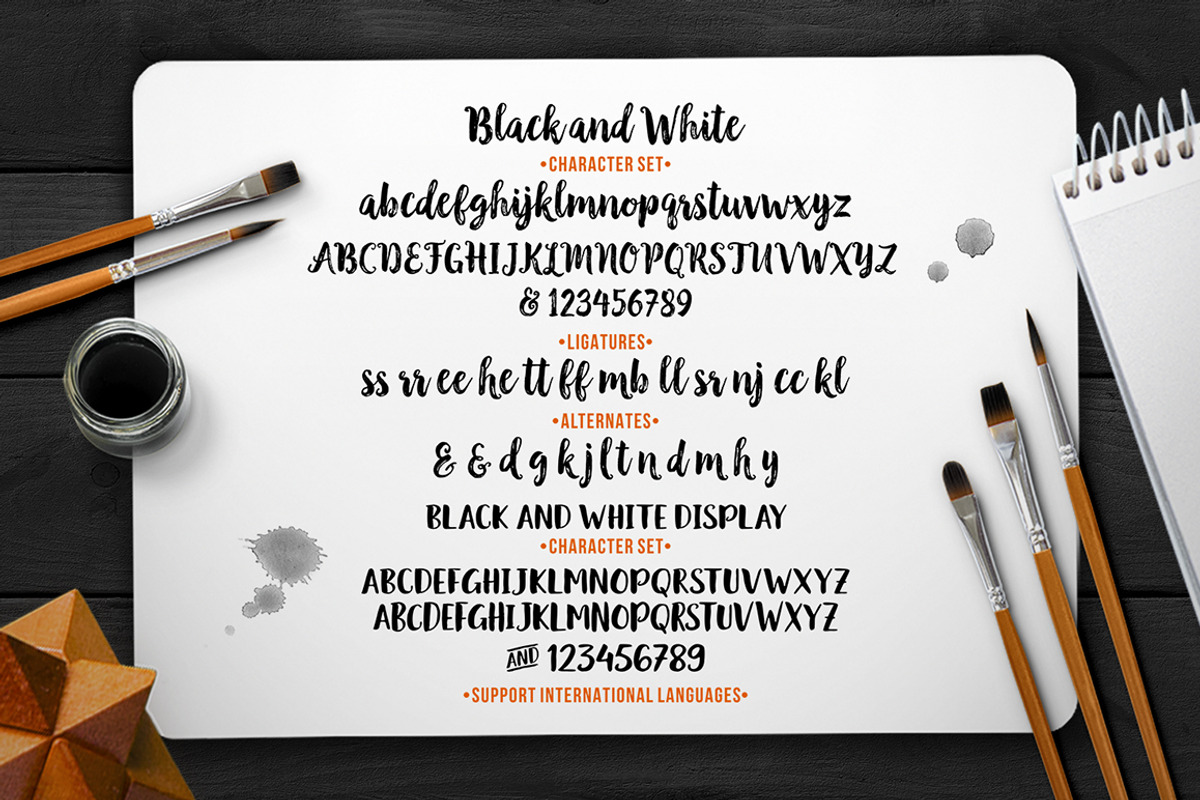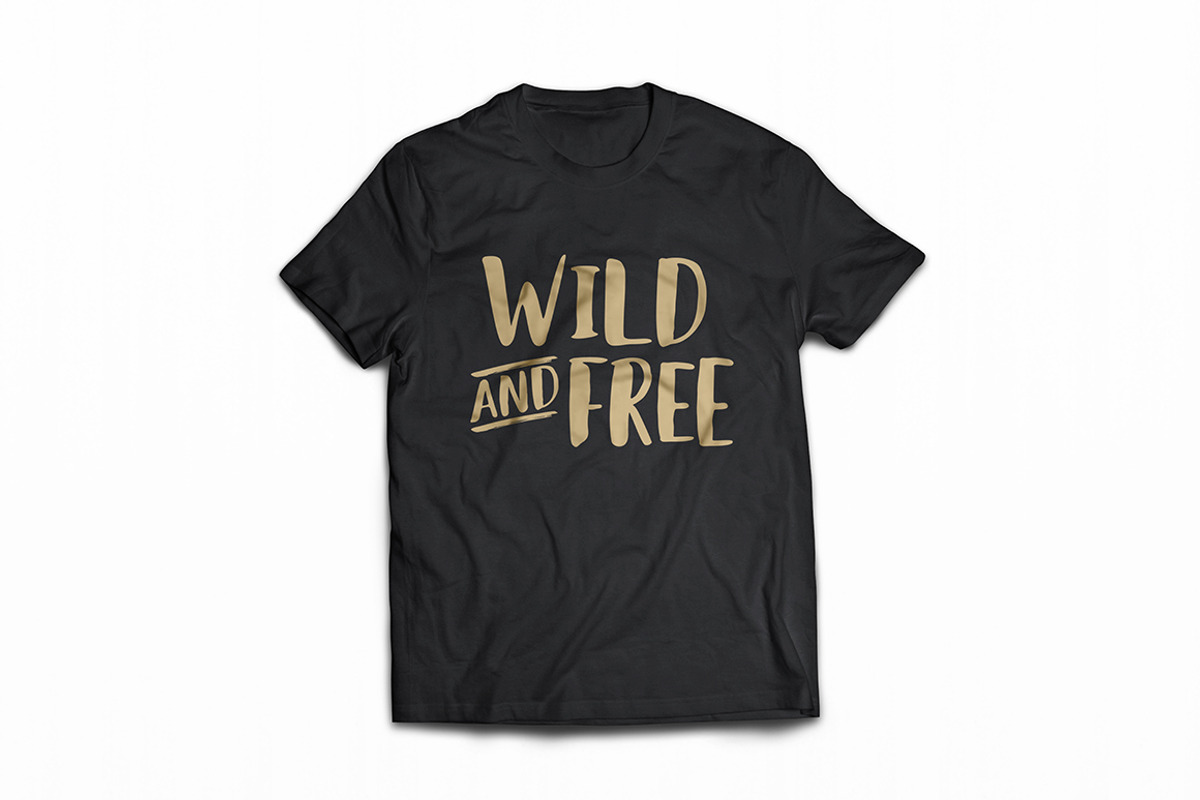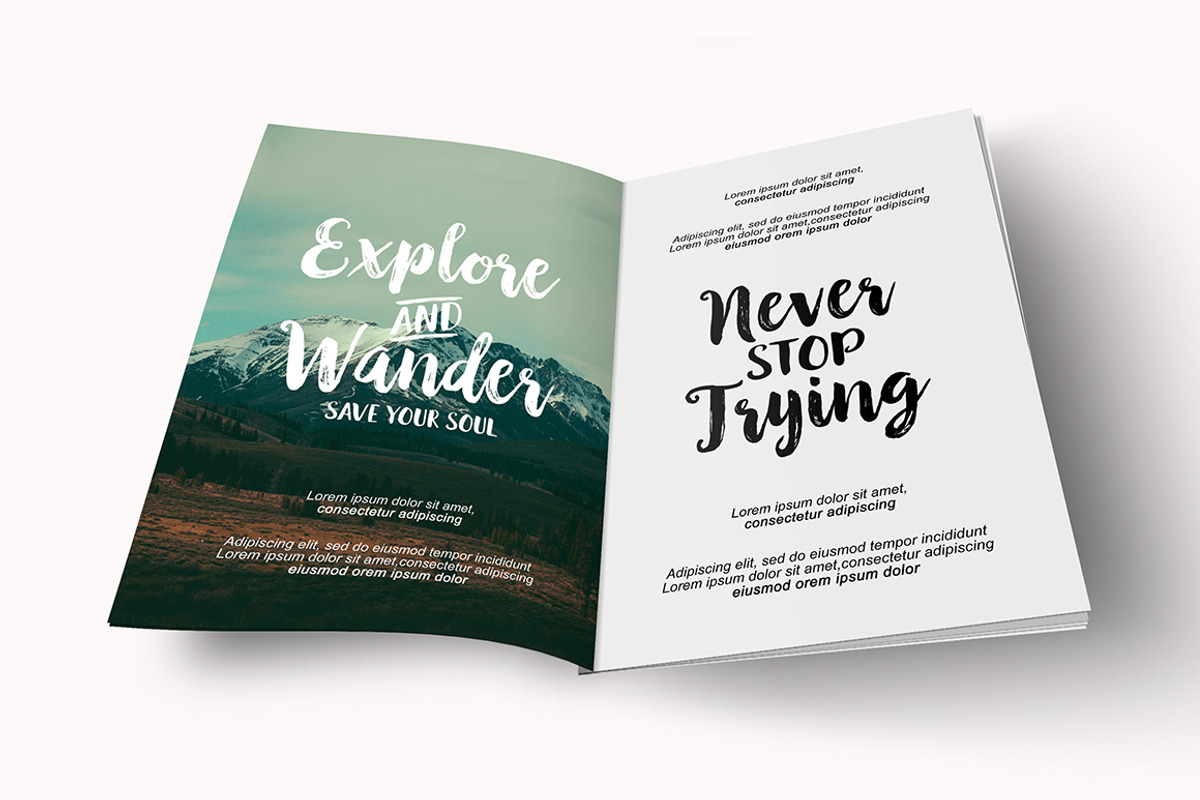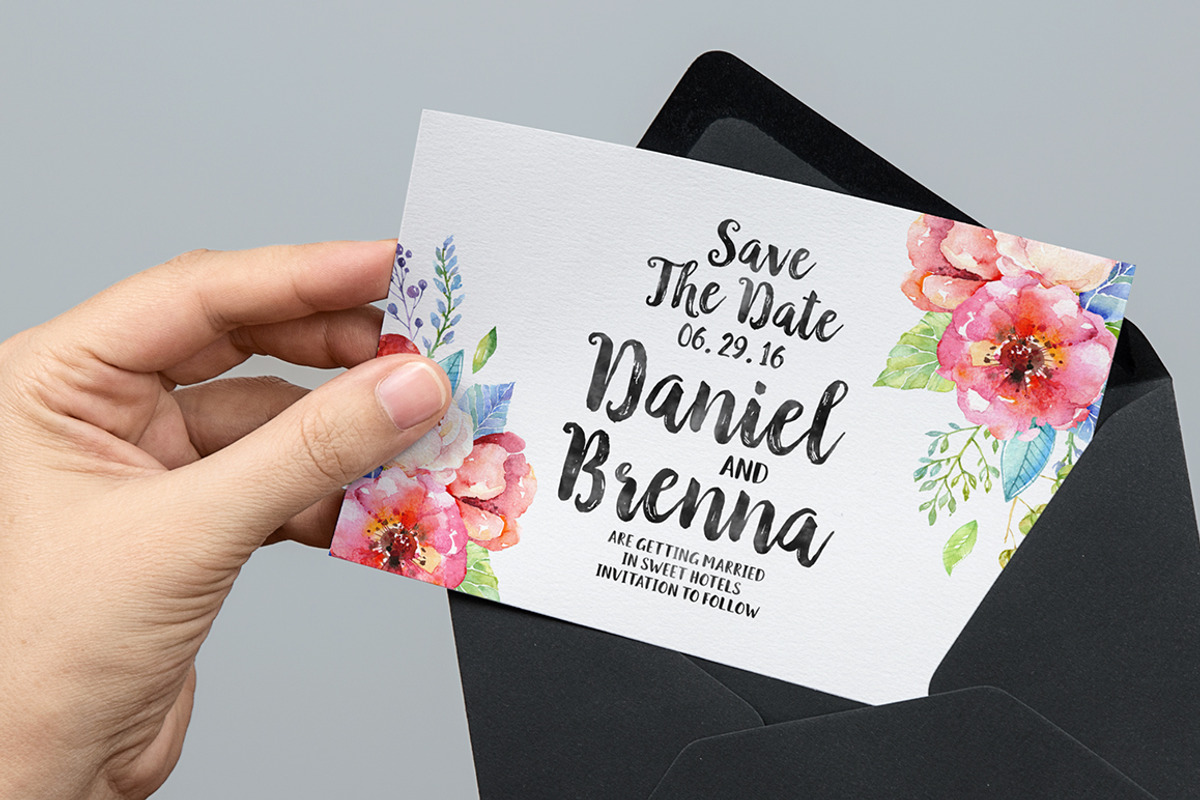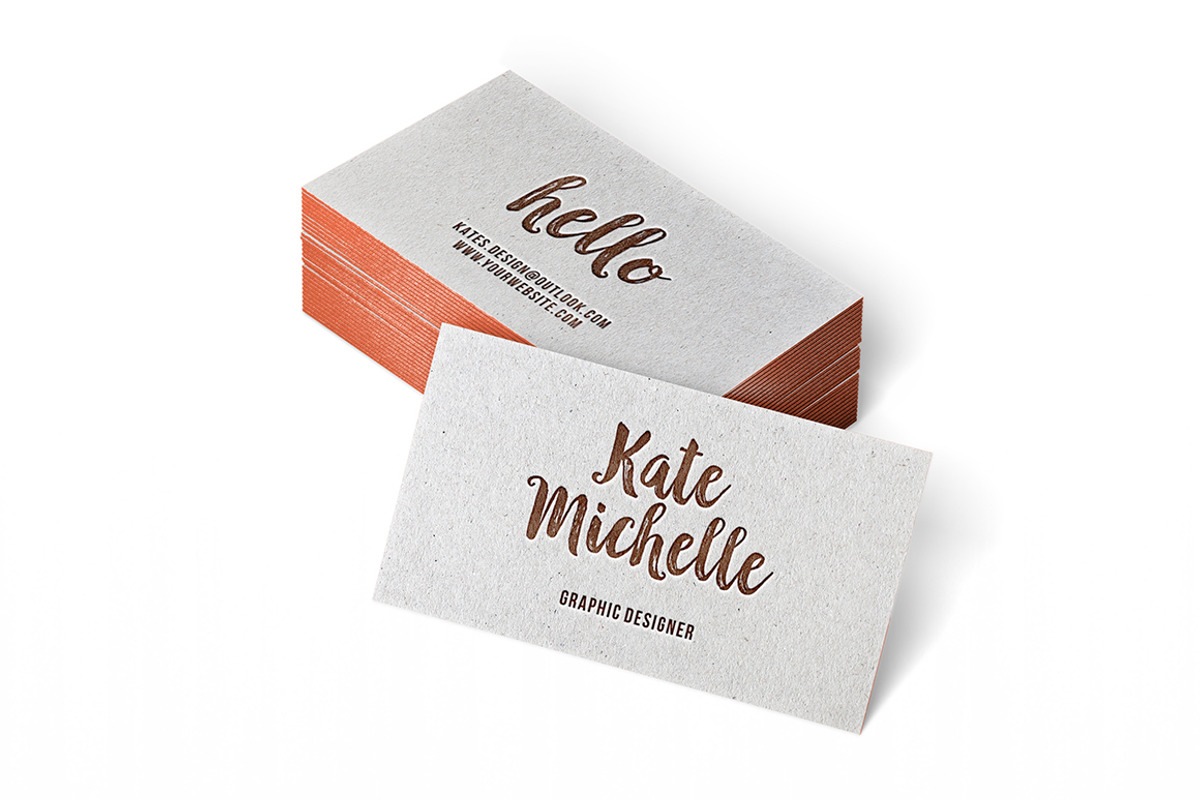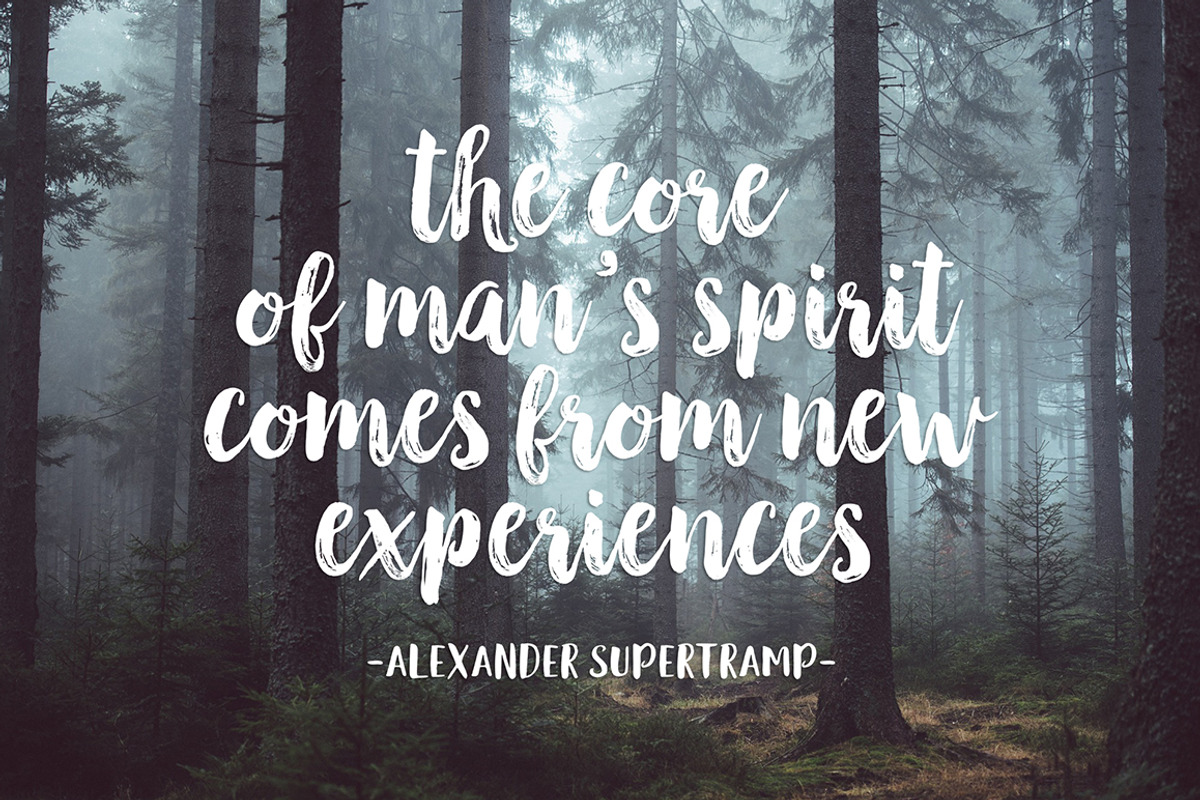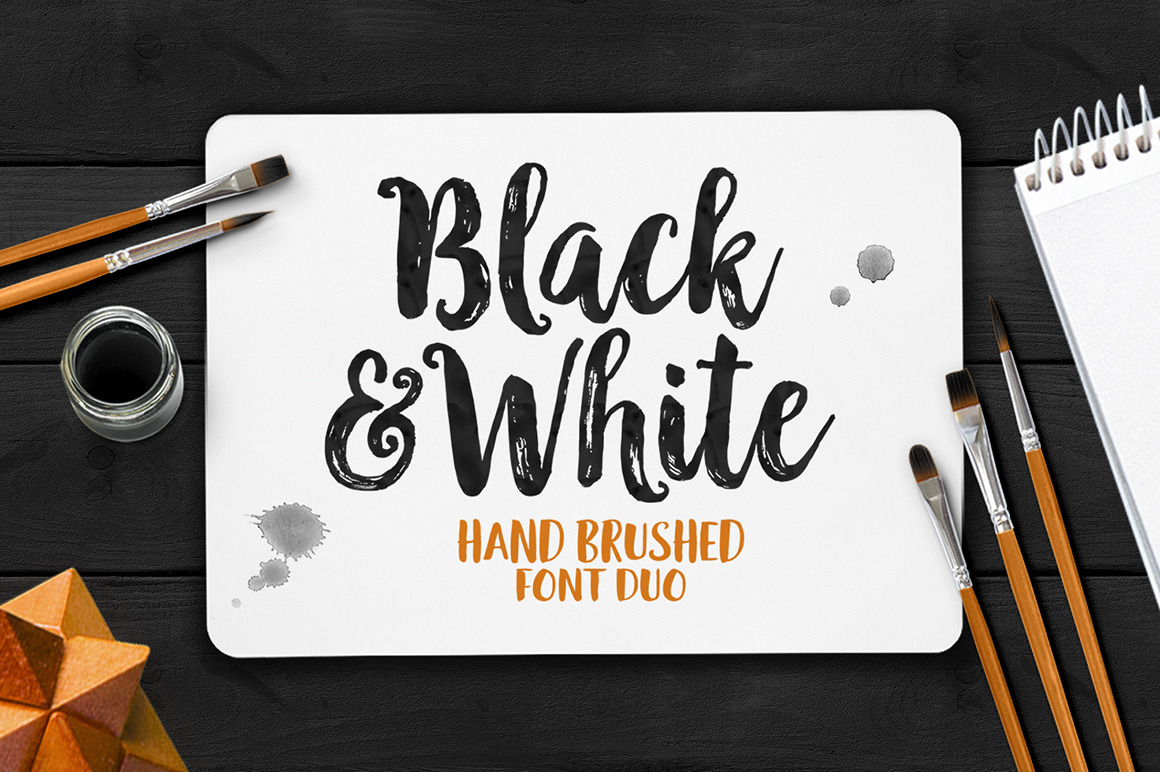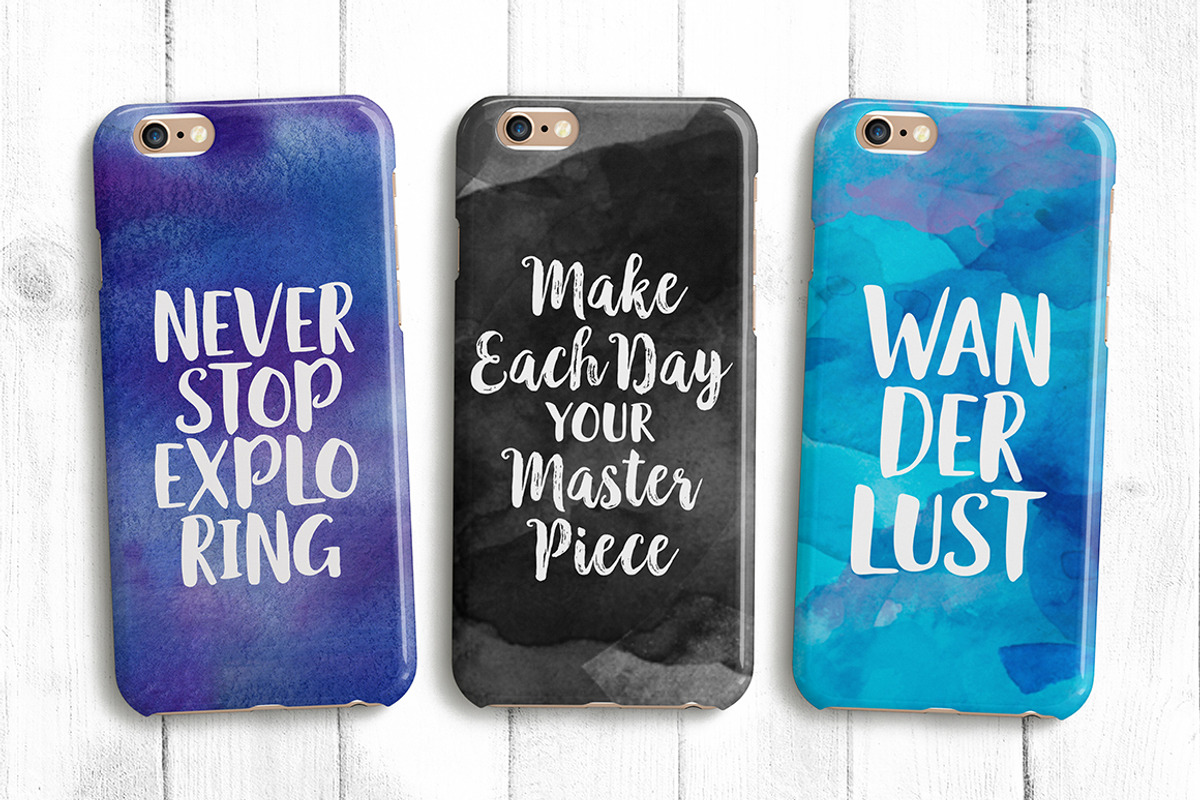
Black & White Font Duo
Black and white script is a hand brushed font created with a brush and ink, bold and irregular baseline. Contains a complete set of lowercase, uppercase, alternates, ligatures, punctuation, numbers, and multilingual support.
And additional black and white display, working in harmony with black and white script to create typography awesome creations. Get some inspiration from the preview above. Contains a complete set of lowercase with normal baseline, uppercase with irregular baseline, ligatures, punctuation, numbers, and multilingual support.
This font ideal for use in watercolor design or lettering style bold hand, such as posters, wedding elements, t-shirt, apparel, cover books, business cards, greeting cards, branding, merchandise, invitations and handmade quotes and more.